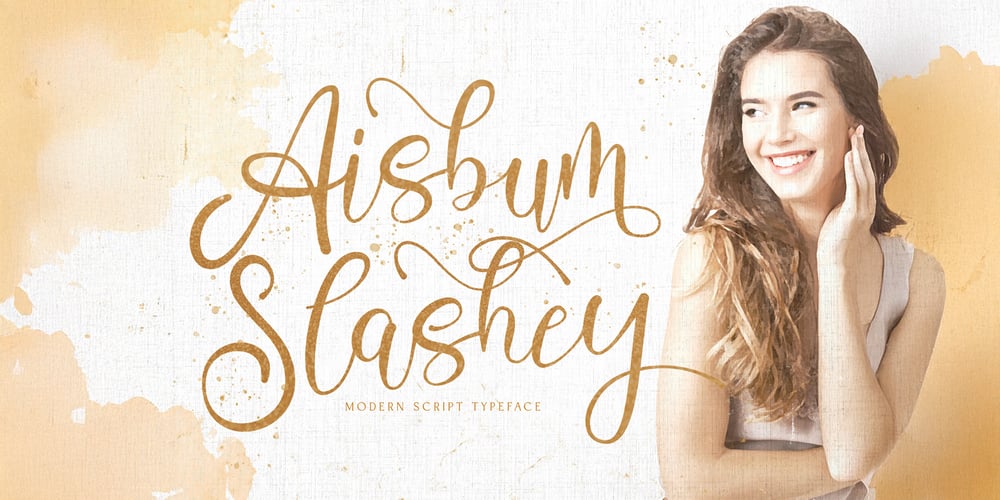
Aisbum Slashey Font Family was designed by Virgiawan Listanto and published by Stringlabs Creative Studio. Aisbum Slashey contains 1 styles and family package options. Aisbum Slashey is sleek and contemporary script font designed to bring elegance and flair to your designs. With its smooth, flowing curves and stylish slashes, this modern script exudes sophistication while maintaining a fresh, trendy vibe.